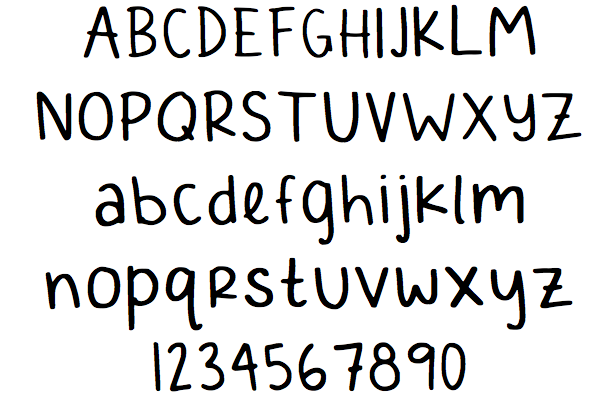
HomeScript FontsLF Scrawl Font Script Fonts LF Scrawl Font FacebookXPinterestWhatsApp About LF Scrawl Font This font is based off of my own handwriting. It is a neat and fun script, perfect for any design! DOWNLOAD NOW People also explored Magic Rope Font Ekela Punch Font Fruit Squirting Font July Summer Font The Millava Font Sack Bag Horitzontal Sketch About Font Bracha Font Galler Rebunk Font 279 0 TagsLF Scrawl Font Previous articleMeilalya FontNext articleI Heart You Always Font LEAVE A REPLY Cancel reply Comment: Please enter your comment! Name:* Please enter your name here Email:* You have entered an incorrect email address! Please enter your email address here Website: Save my name, email, and website in this browser for the next time I comment. Personal Use Free Dream Orphans Personal Use Free Read more about this font Shawaki Personal Use Free Read more about this font Letter Clips Personal Use Free Read more about this font Welliana Personal Use Free Read more about this font BLOG How to Cut Any Font on Cricut: Convert a Font to SVG (Free) Turn any font into a clean SVG so it cuts crisp on Cricut - a quick 3-step workflow using a free font-to-SVG tool. Using Fonts in Digital Marketing: Tips to Strengthen Your Brand Identity Where to Buy American Fonts Online in 2024 Exploring Font Trends